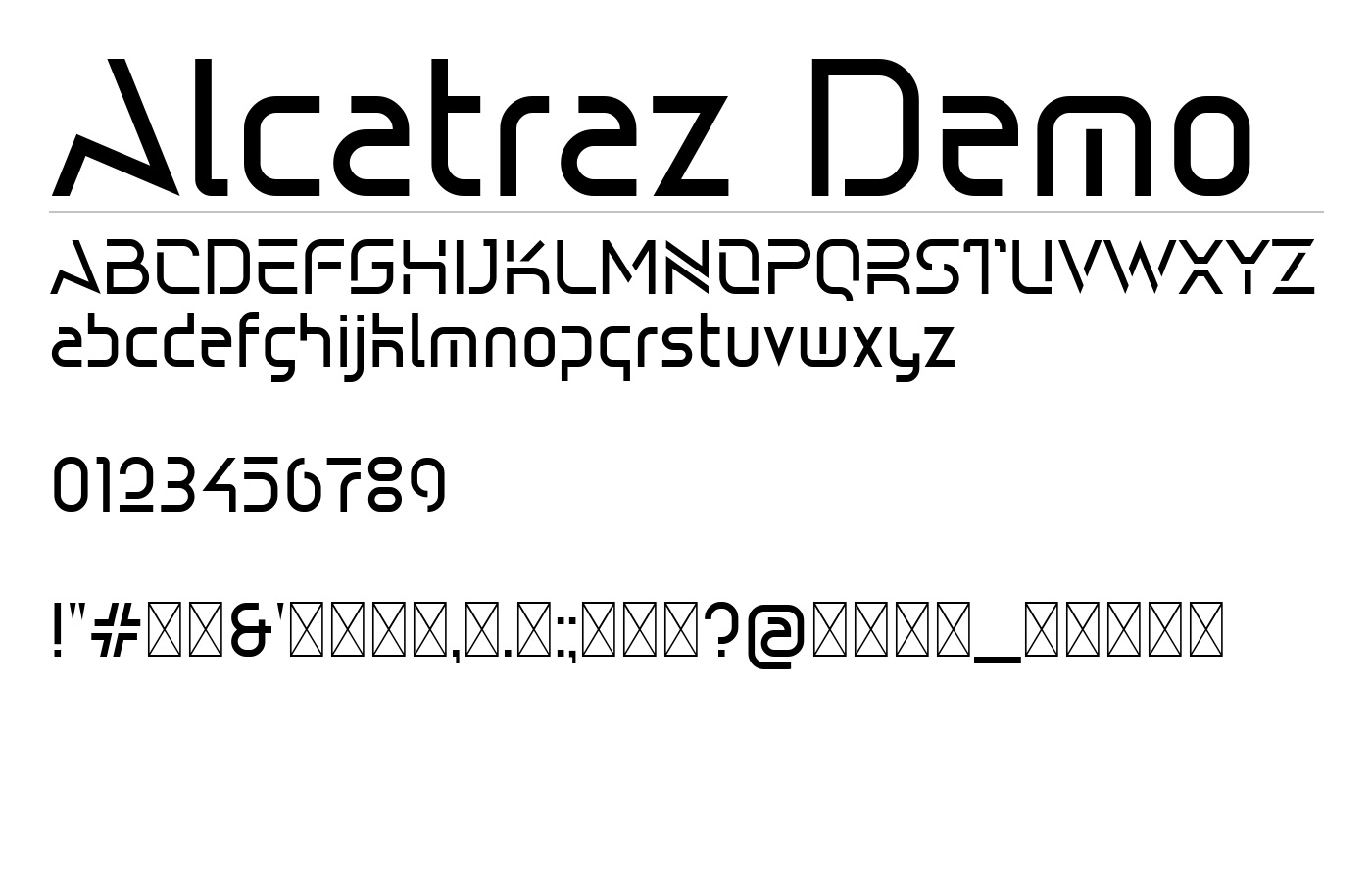
Alcatraz Demo is a modern, geometric sans serif font with a distinctive sci-fi and futuristic vibe. Its clean lines and sharp angles, combined with unique character shapes like the pointed 'A' and stylized 'Q,' give it a sleek, tech-inspired personality perfect for innovative branding, digital interfaces, and eye-catching headlines. This font works well in projects aiming for a modern and edgy look, especially in technology, gaming, or creative design contexts.
Alcatraz Demo Font
About Alcatraz Demo Font
| Font family | Alcatraz Demo Font |
| Designer | Sugiyanto |